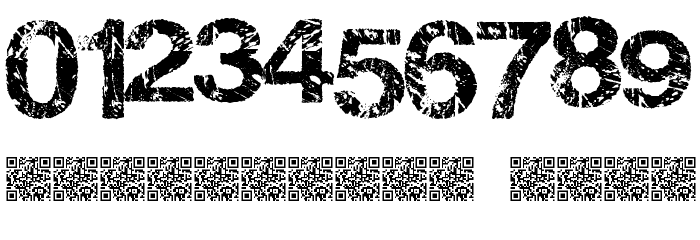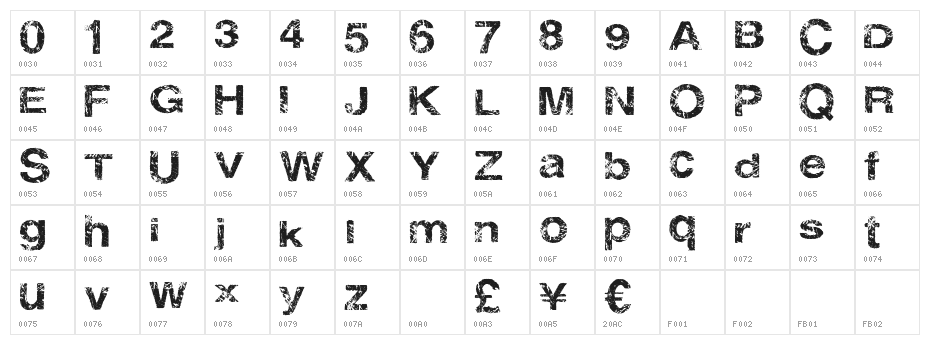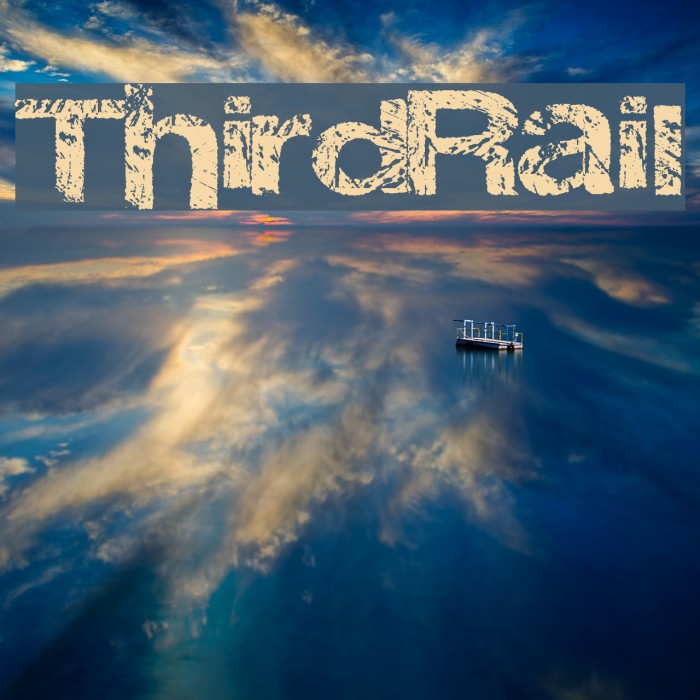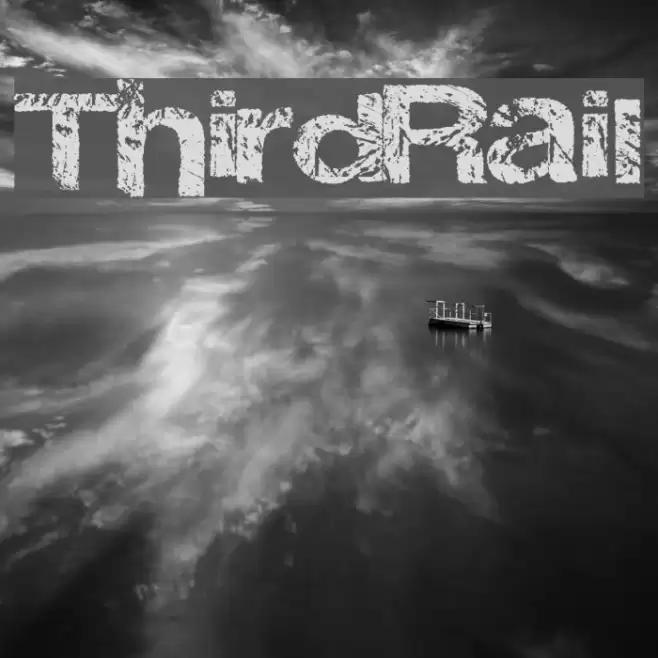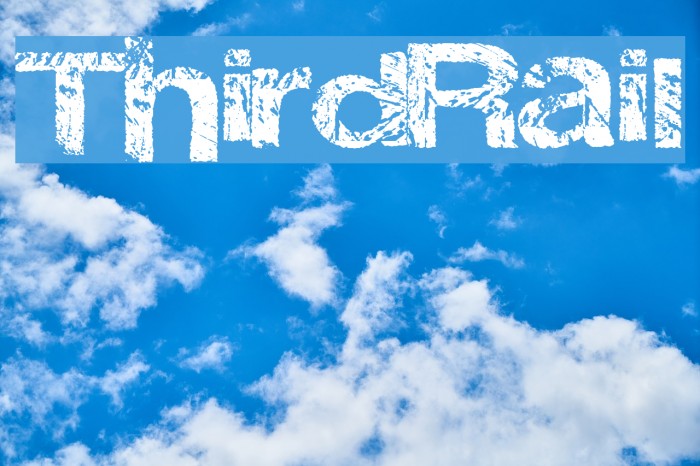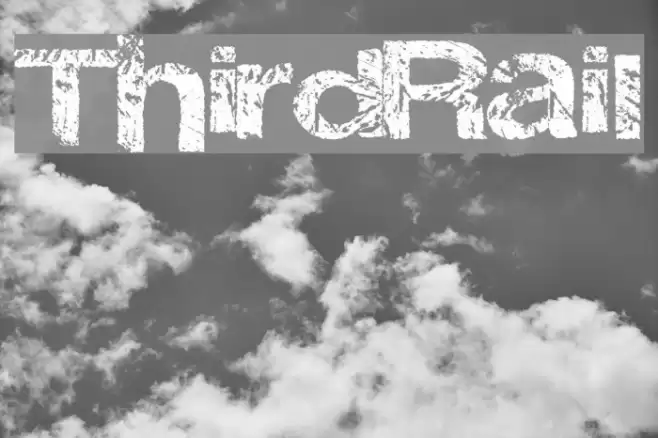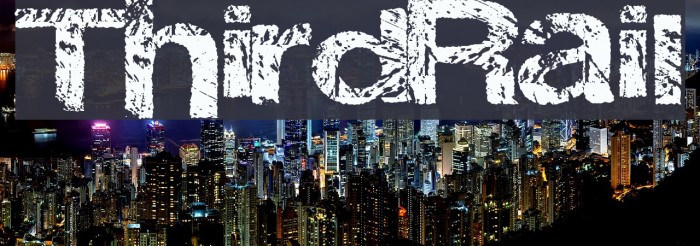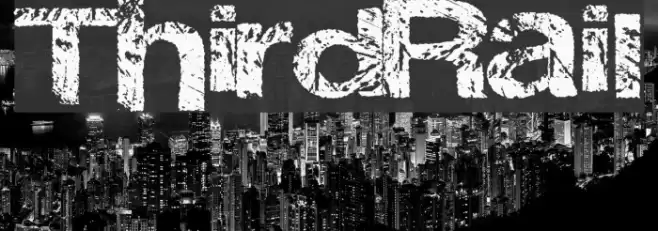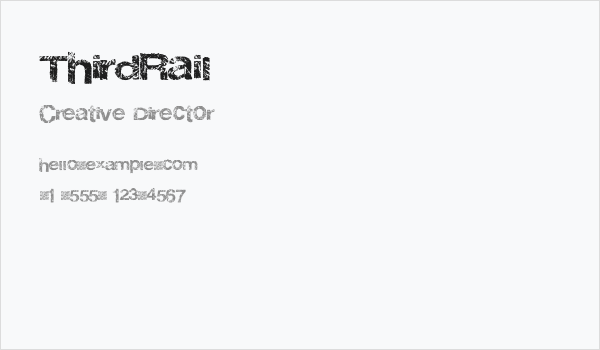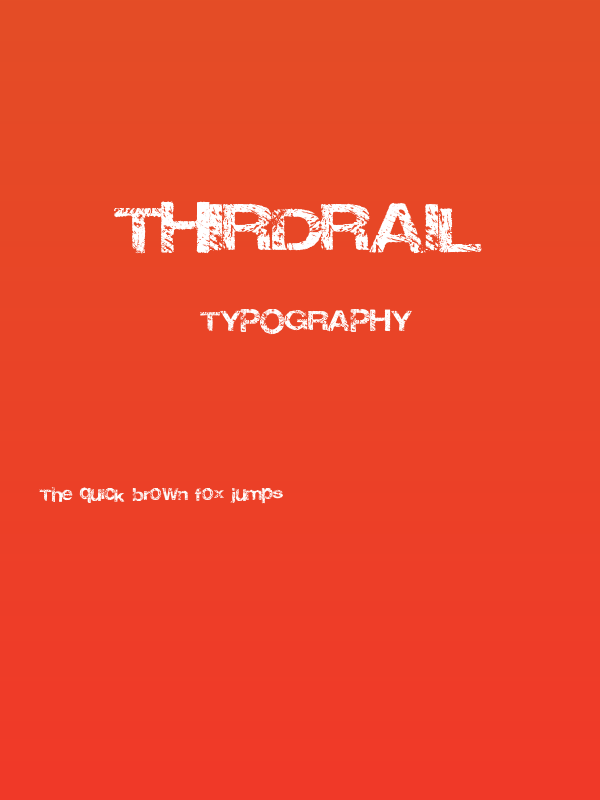
ThirdRail Font
ThirdRail Description
This font features a distressed, grunge style with a bold and rugged appearance. The characters are heavily textured, giving them a worn, vintage look reminiscent of weathered surfaces or graffiti. The uppercase and lowercase letters maintain a consistent style, with each character displaying unique distress patterns. The numerals and special characters follow the same aesthetic, ensuring uniformity across all glyphs. This font's boldness and texture make it stand out, ideal for projects that require a strong visual impact.
| Proposed Projects | Ideal for album covers, posters, urban-themed designs, and any project needing a gritty, bold statement. |